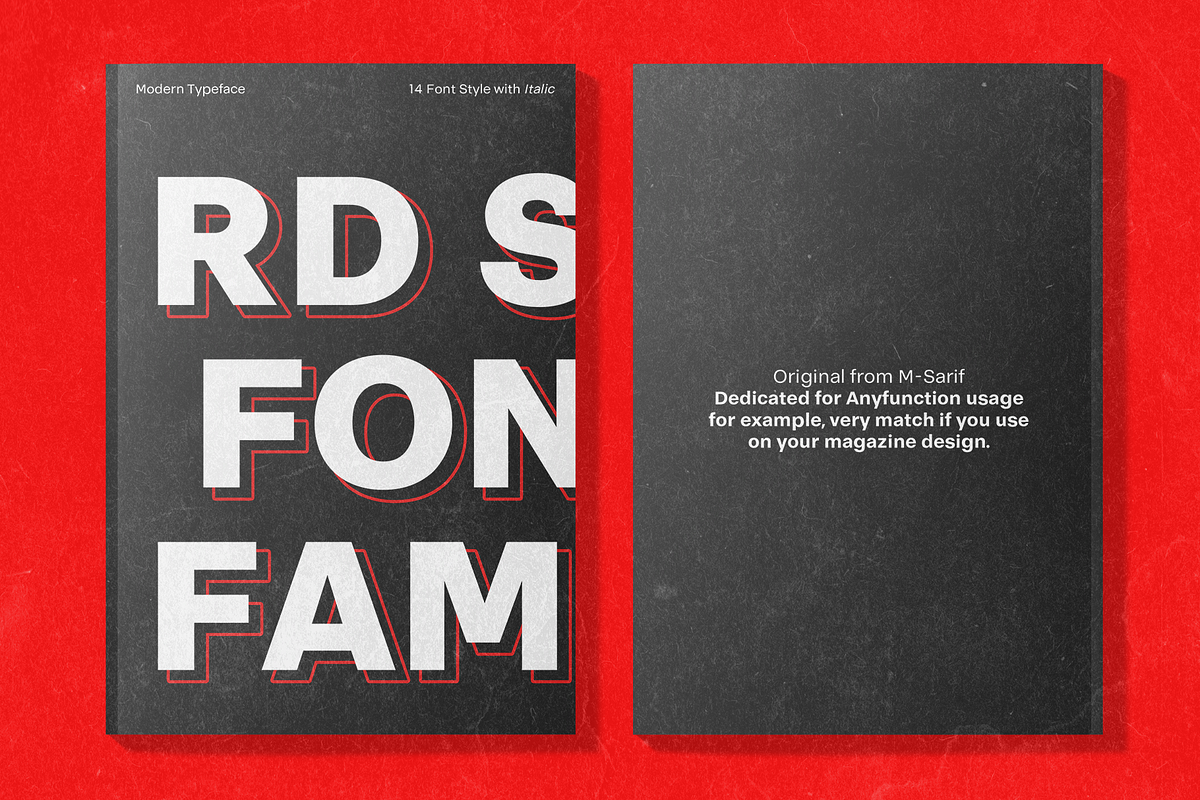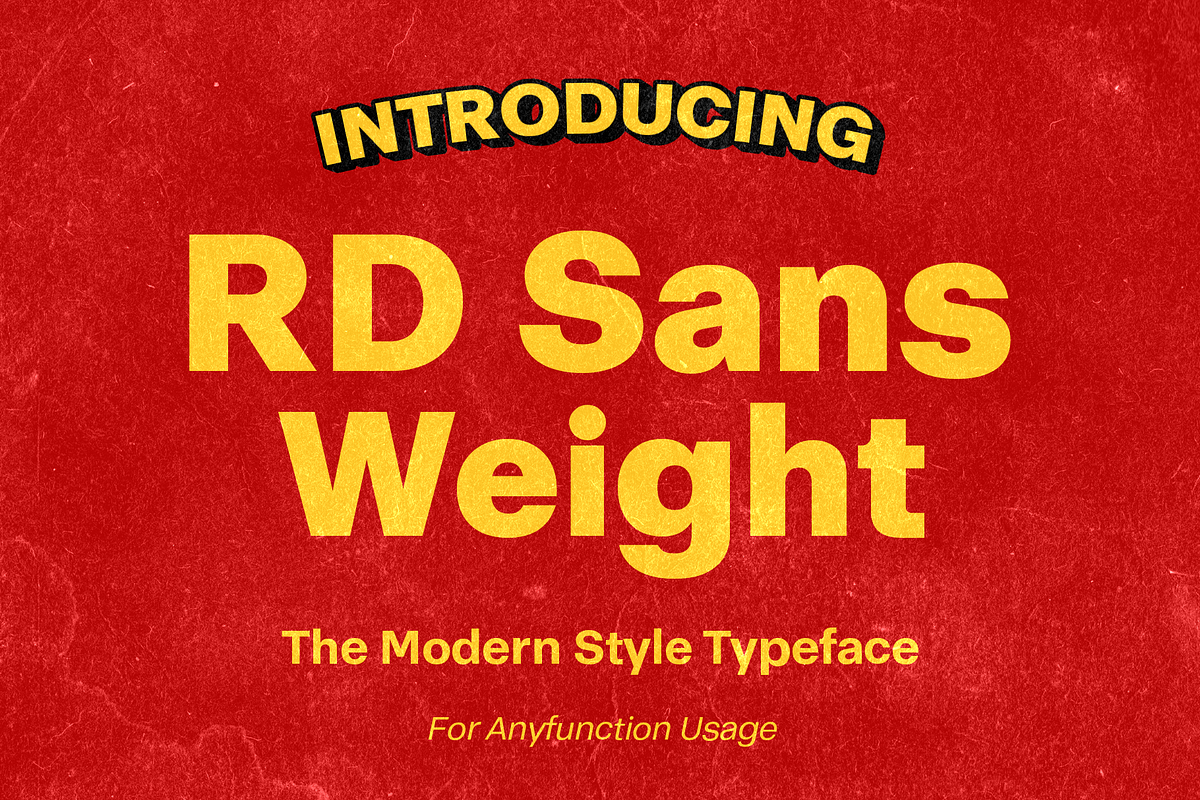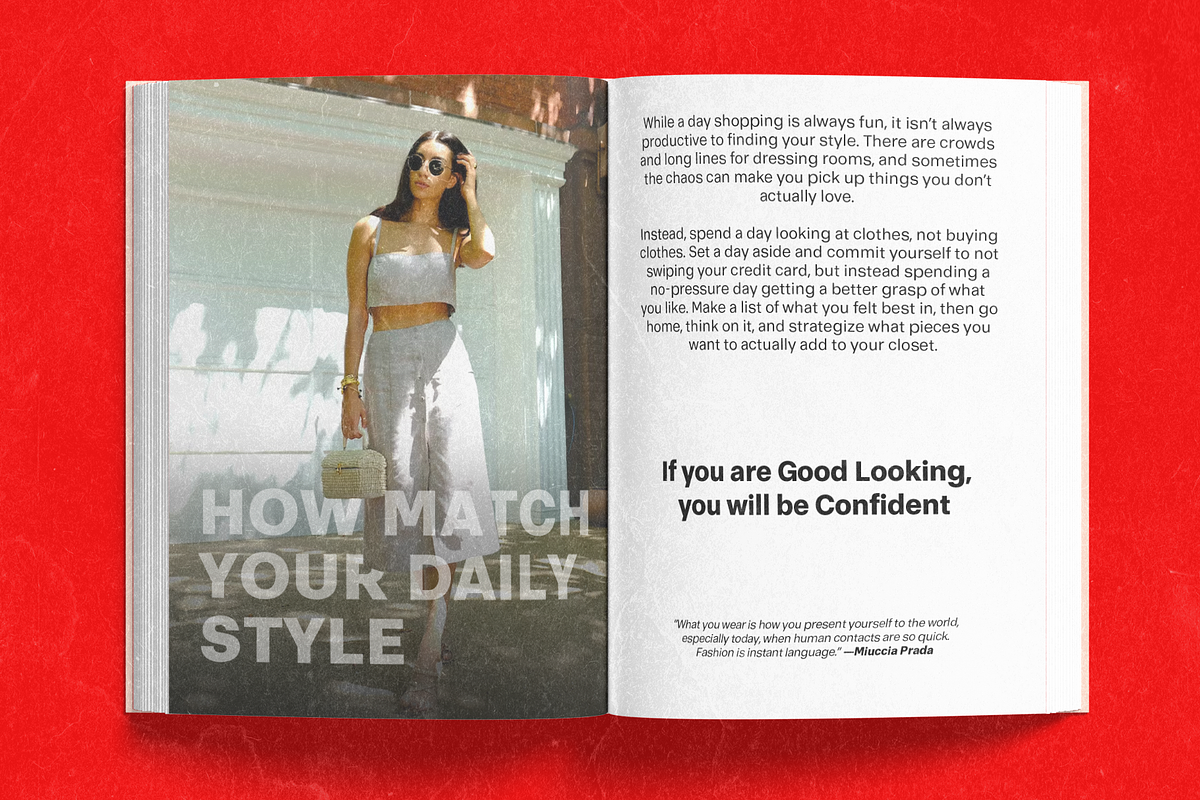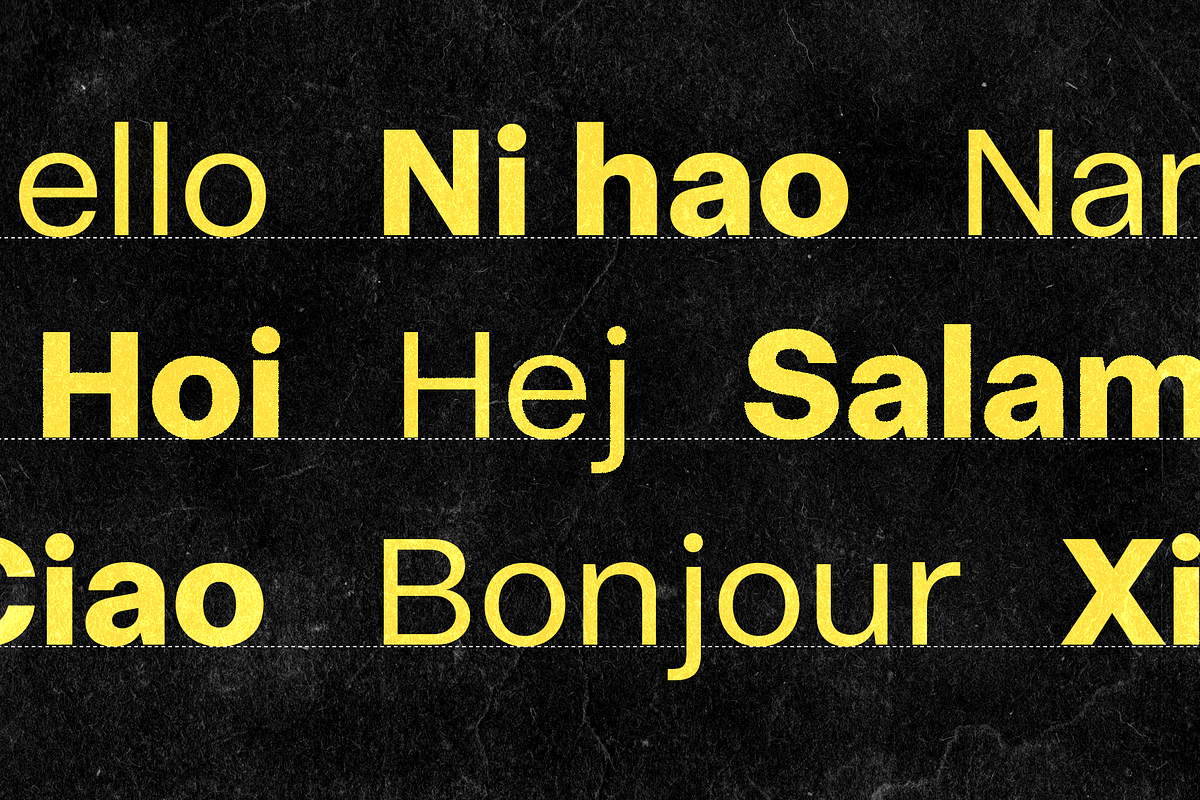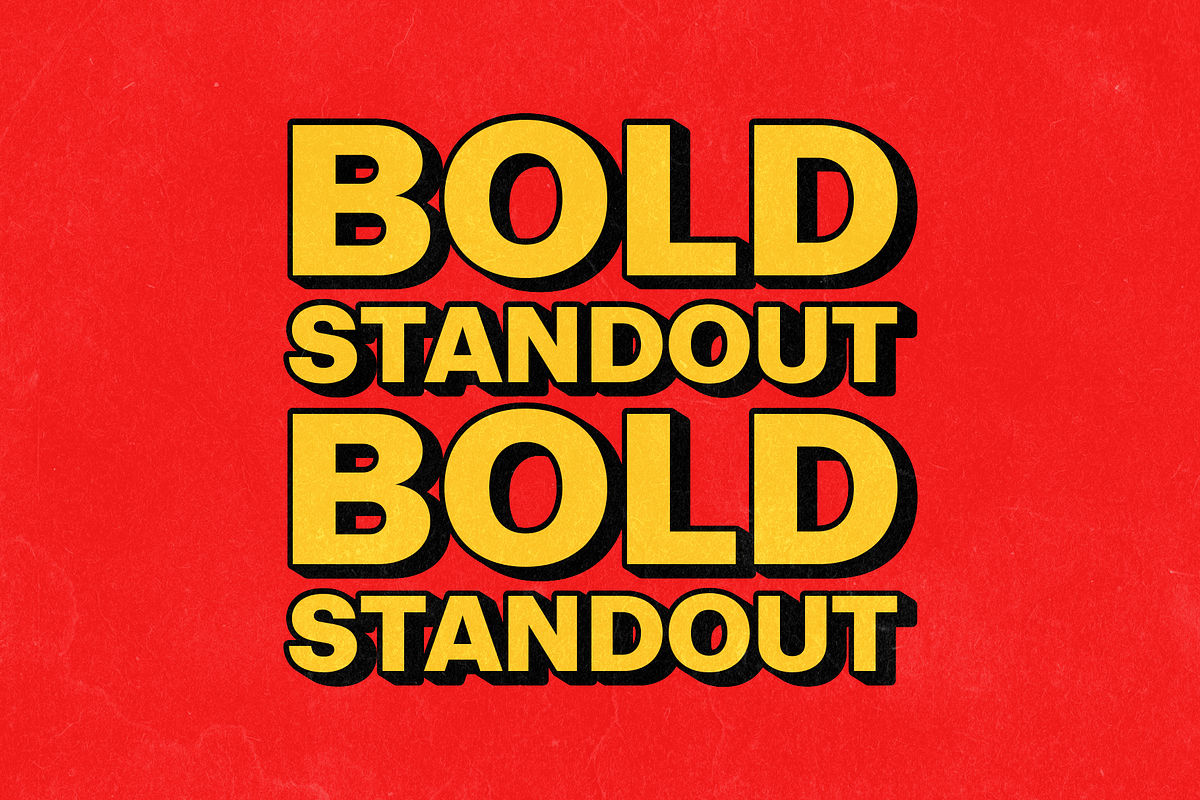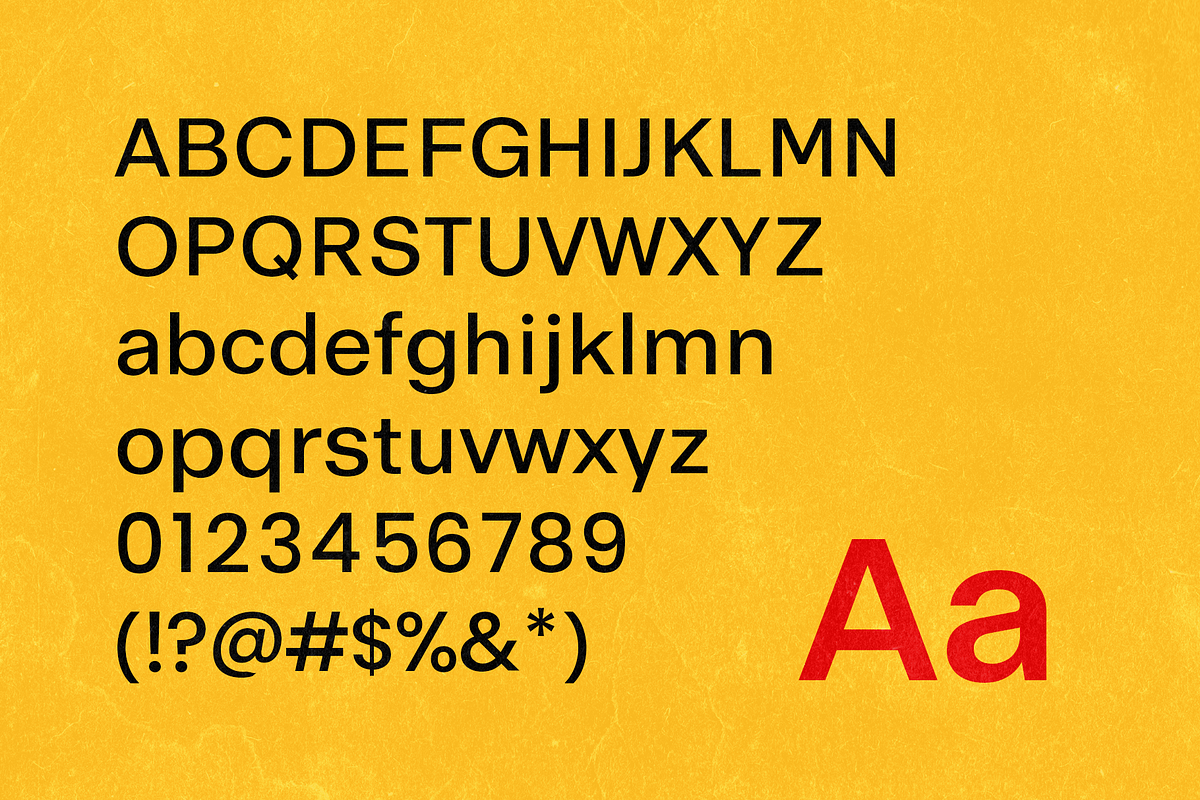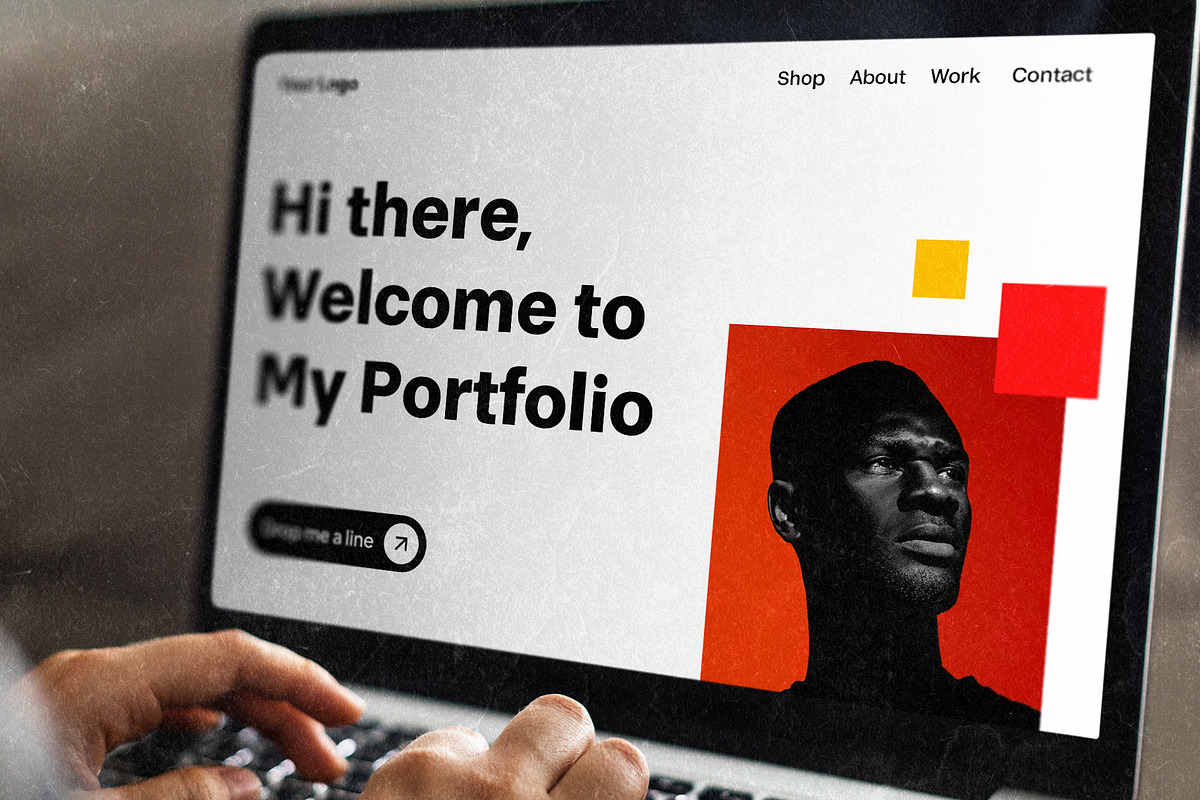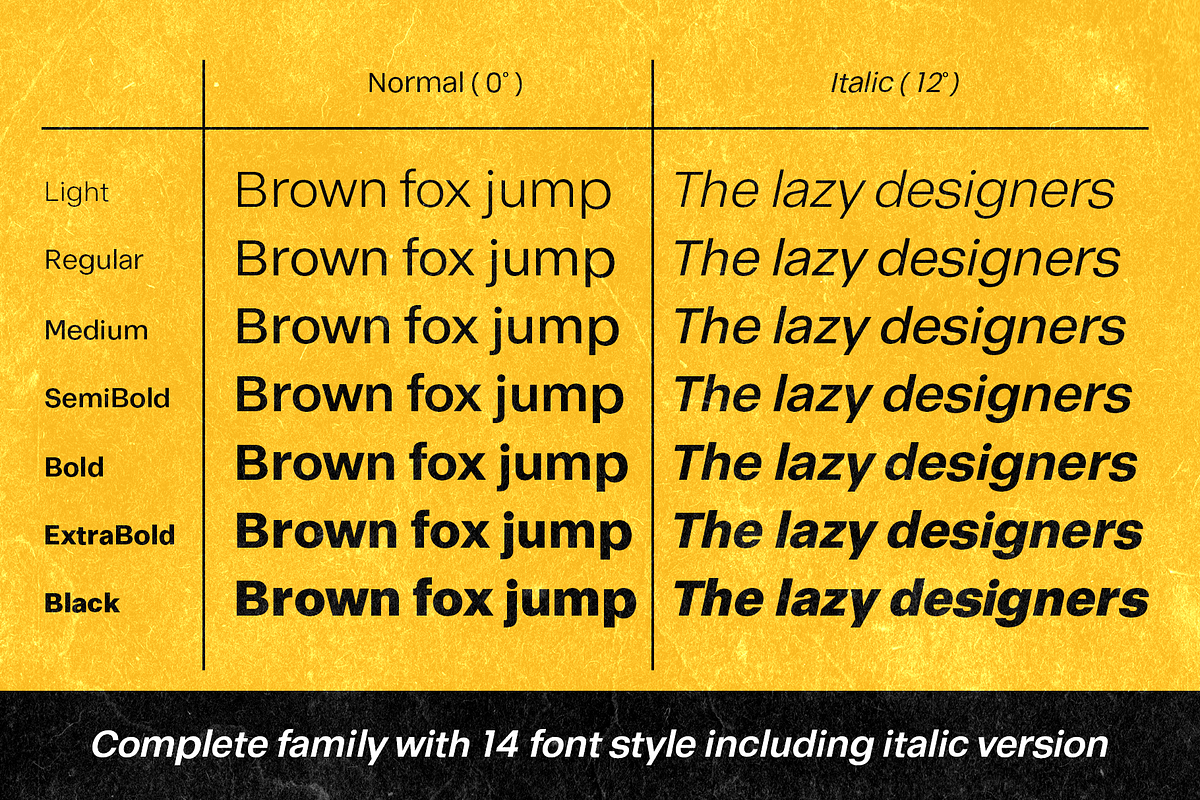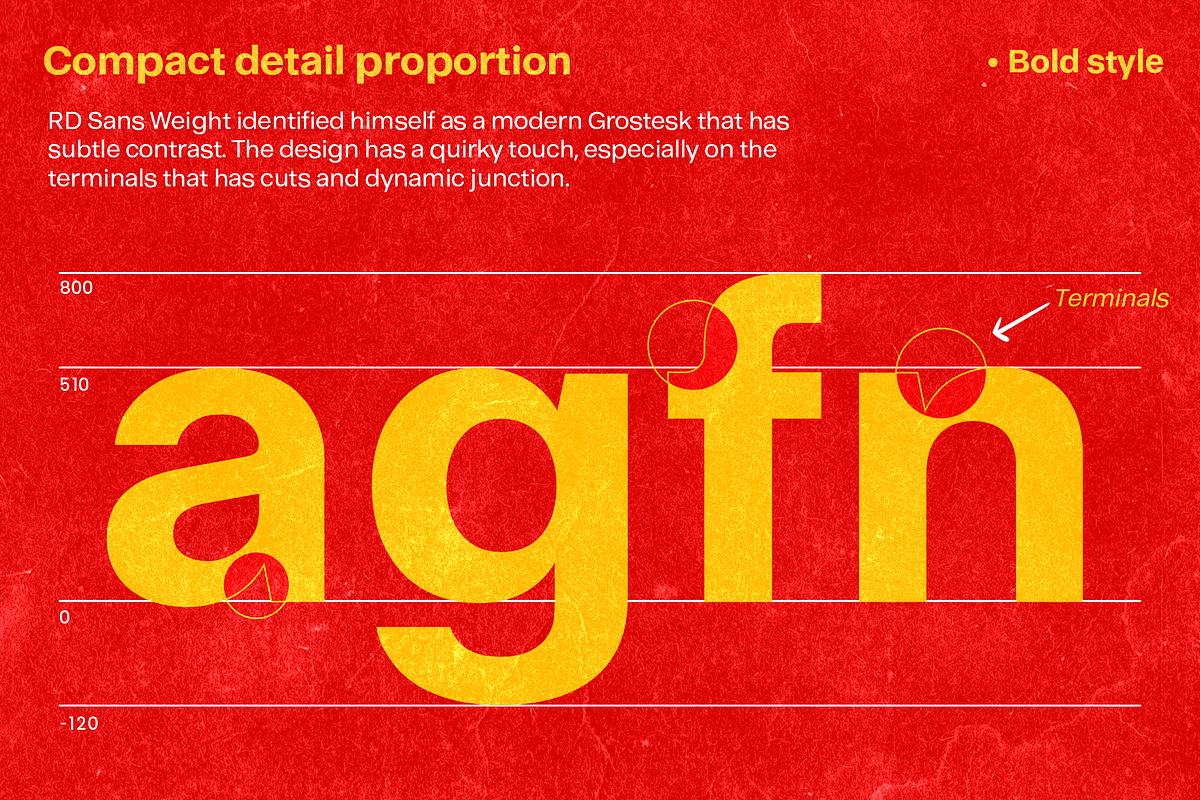
RDS Weight - Modern Type
RD Sans Weight Family - Modern Grostesk Typeface
RD Sans Weight is family of sans serif fonts for use from large to small sizes. The weights family itself contain 14 styles including italic, ranging from Light to Black. The font family takes was inspired by neue haas Grostesk typefaces such as Neue Helvetica and Helvetica Clones. Like any other modern Grostesk typefaces, the details of the contrast in this font family are quite subtle and yet still harmonize while standing in between another character, the open apertures help them to increase the quirkiness accompanied by the sharp terminals on each rounded glyphs. The RD Sans Weight Family is well equipped with OpenType features, and the main usage of this font is universal, means this can use it any design style as long as the look and feel keep match with's characteristics.